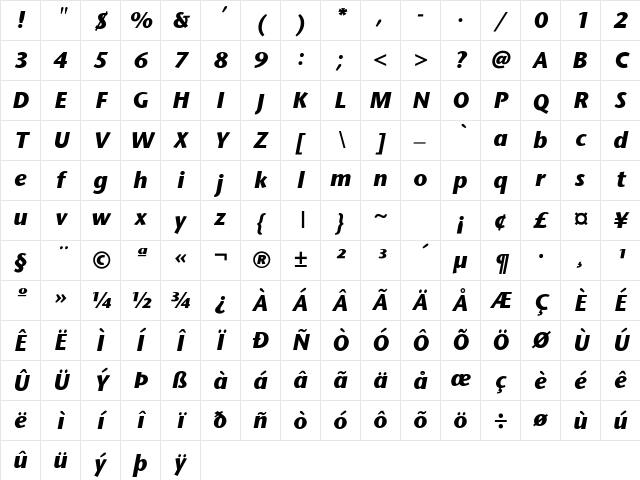
Stone_Sans-BoldItalic Regular
Design Context for Stone_Sans-BoldItalic
Stone_Sans-BoldItalic is a composed and adaptable typeface that performs quietly and consistently across a wide range of design contexts. The slanted form adds forward momentum and visual energy. Its bold stroke weight gives it real presence on the page.
Pro Tip: Use Stone_Sans-BoldItalic for emphasis, pull quotes, and subheadings where its slanted energy can add rhythm to the layout.